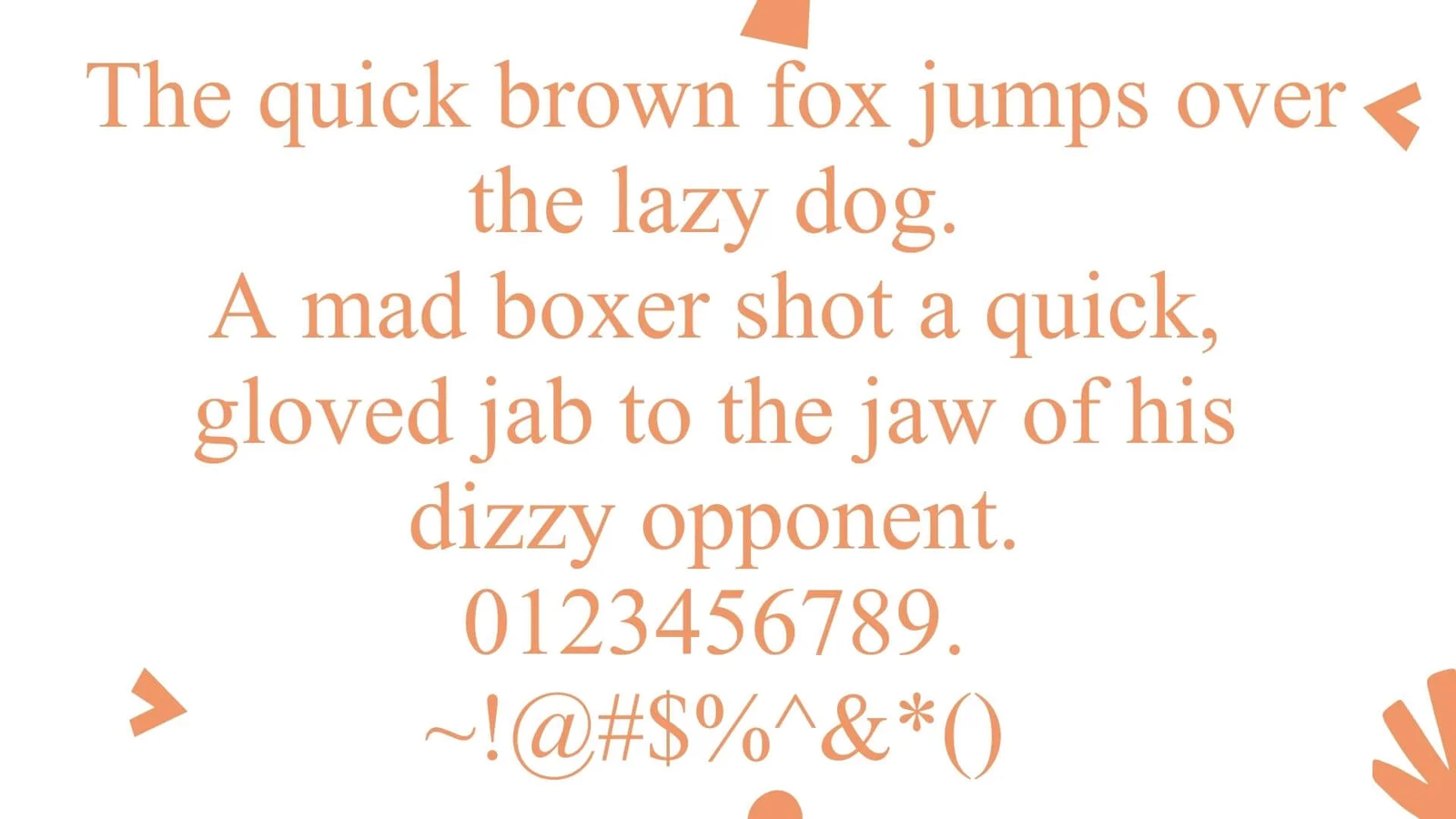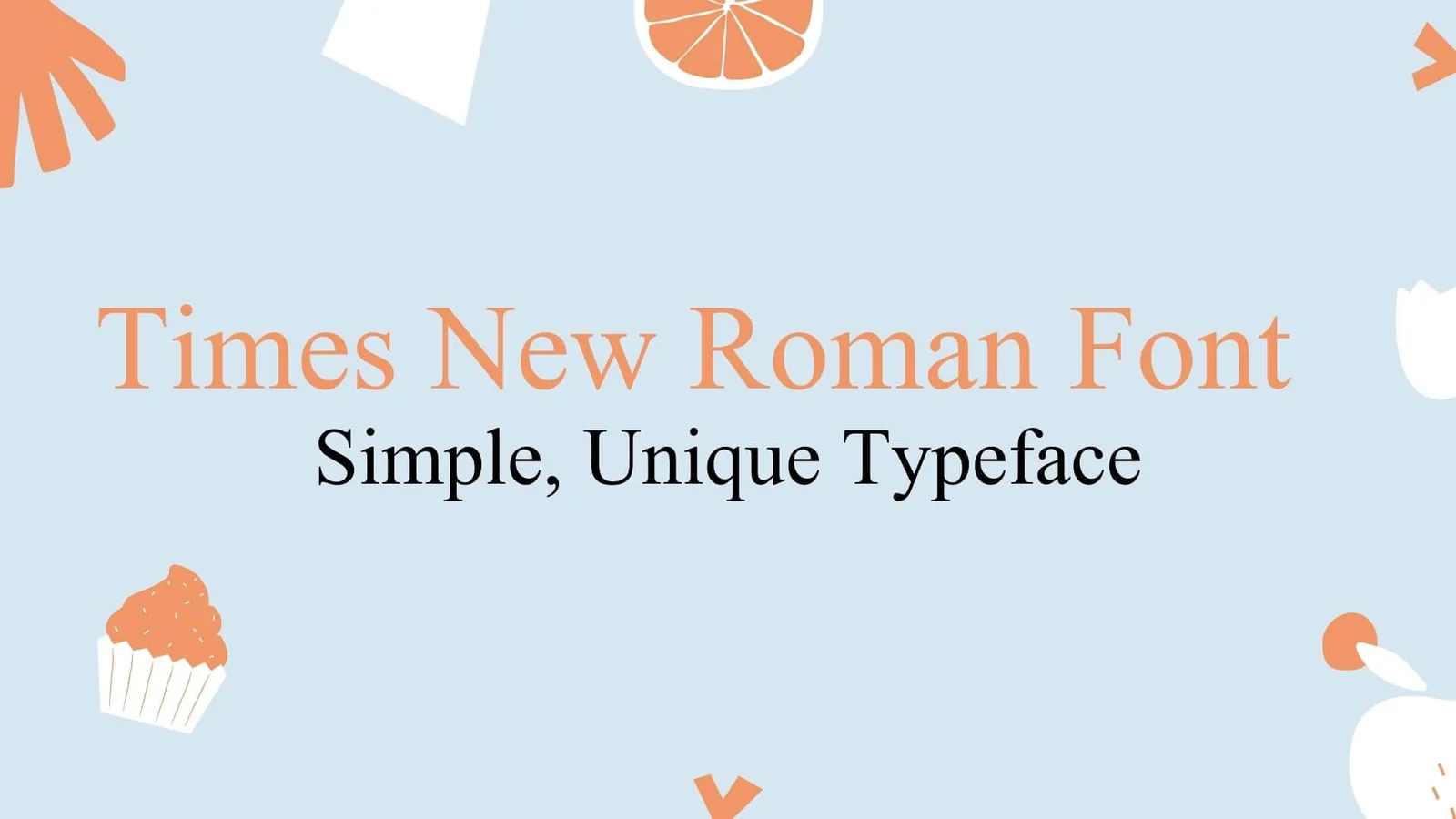
About Times New Roman Font
The world's most widely used serif typeface
Font Features
- High-quality serif design
- Perfect for classic applications
- Excellent character coverage
- Versatile and professional